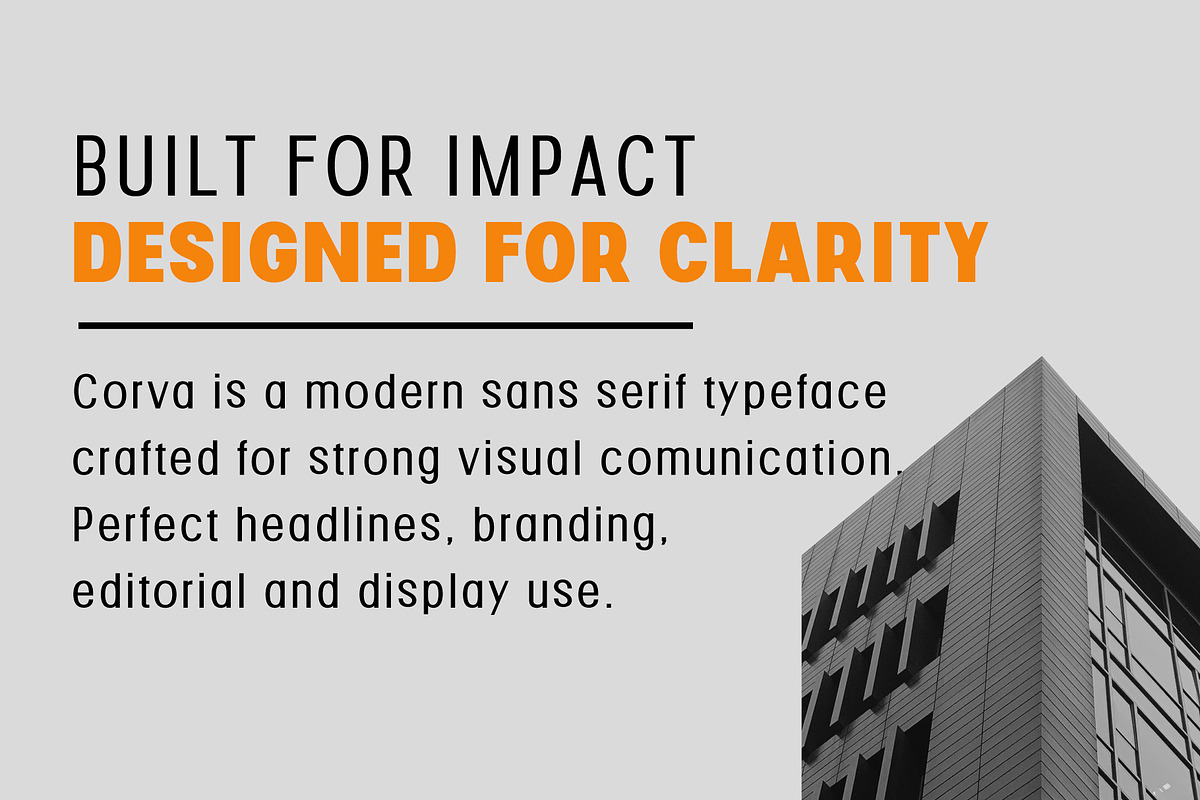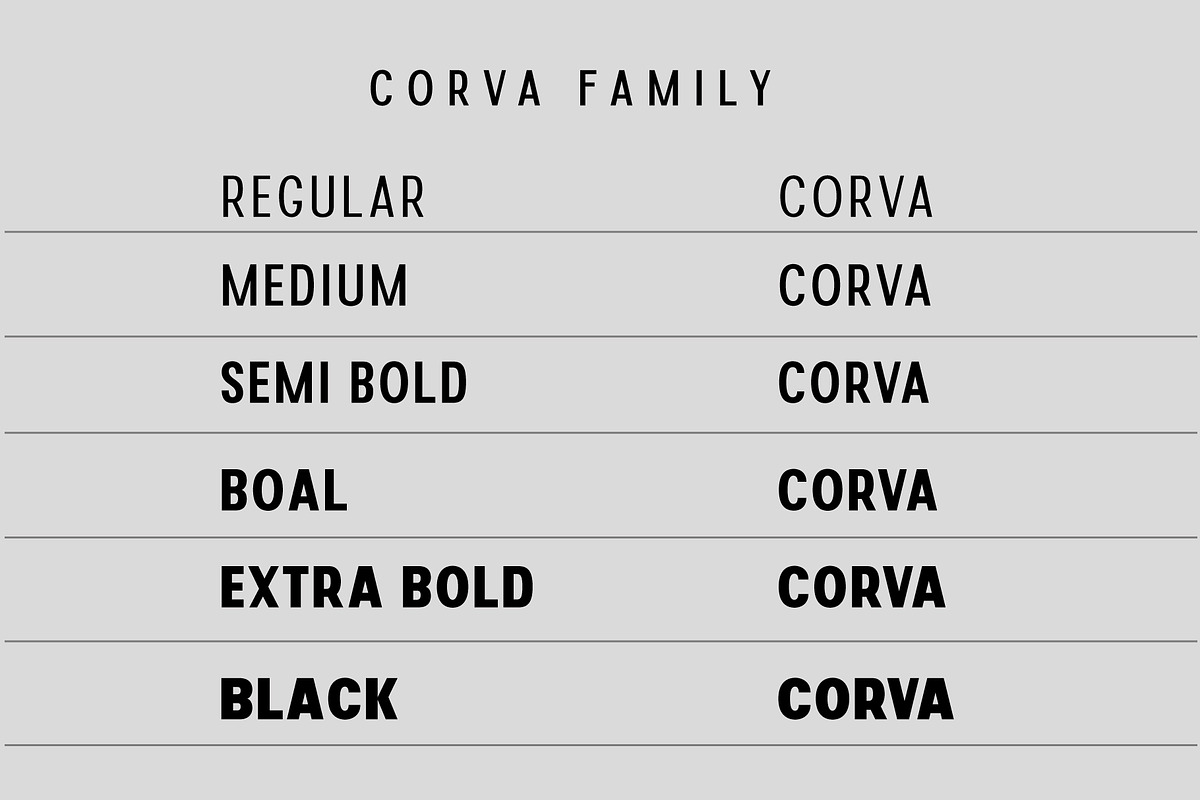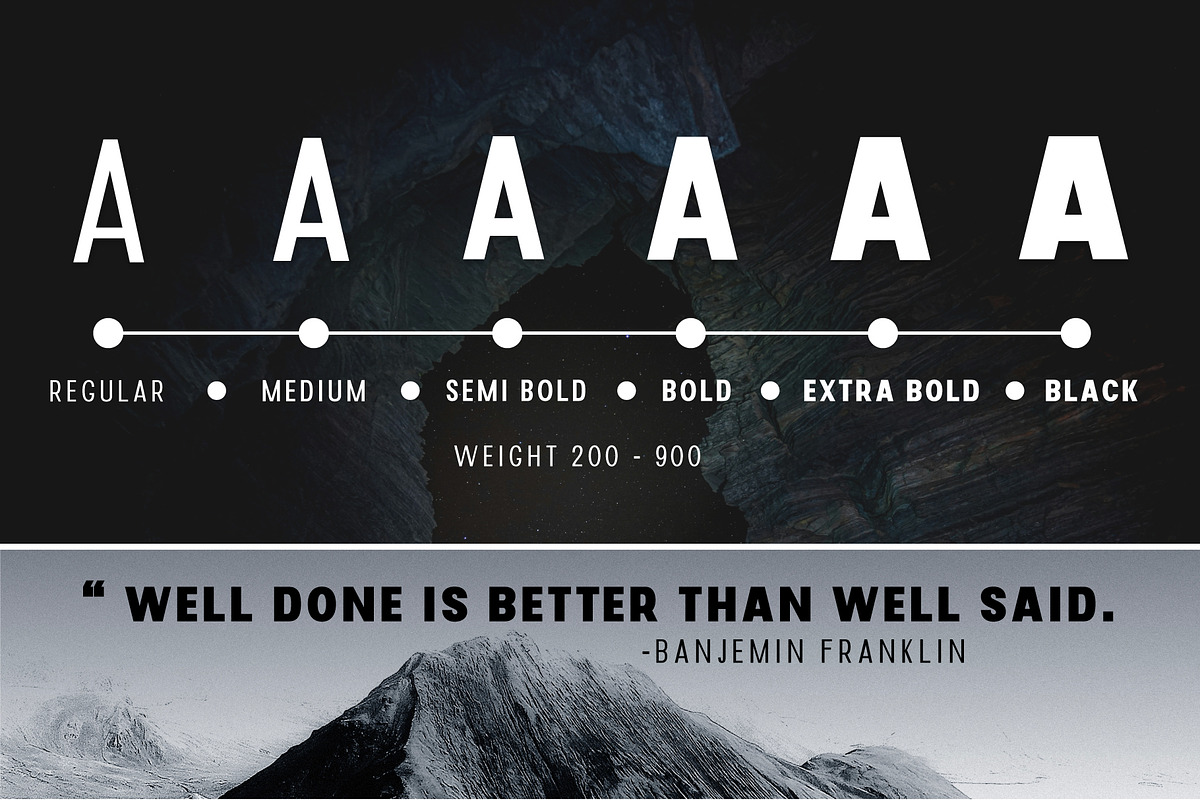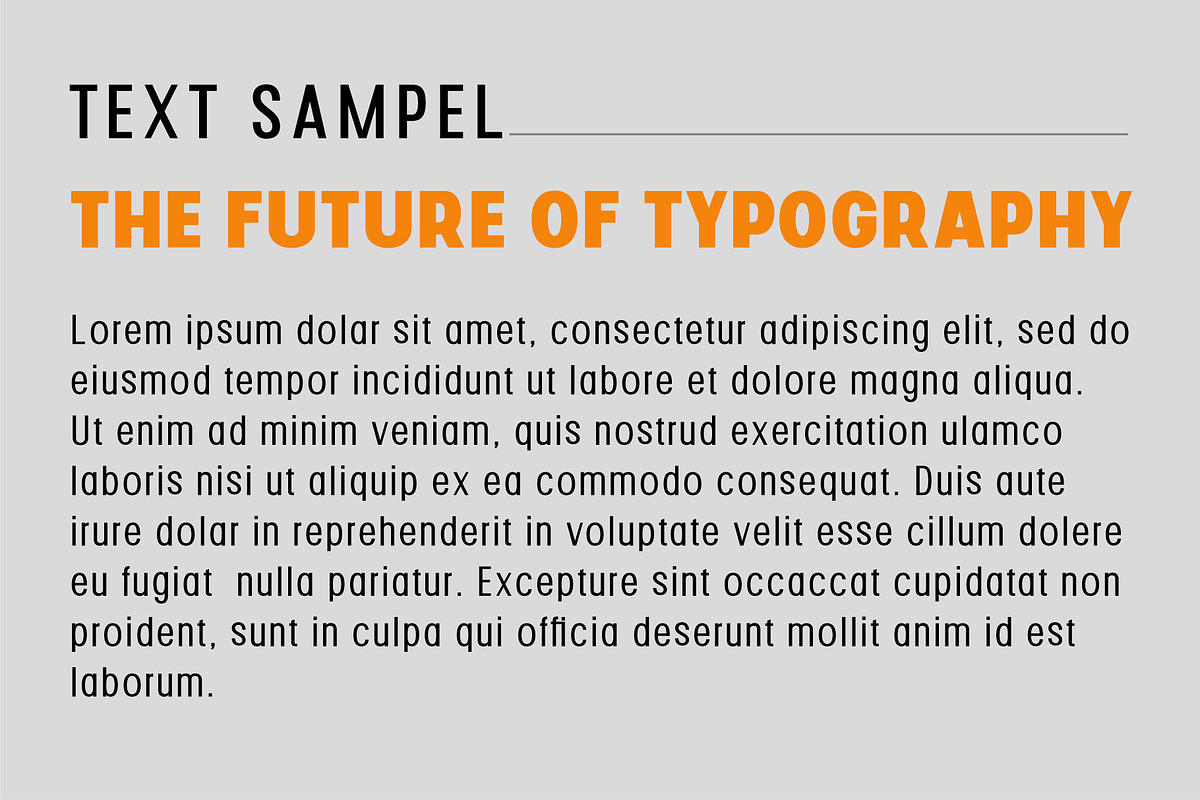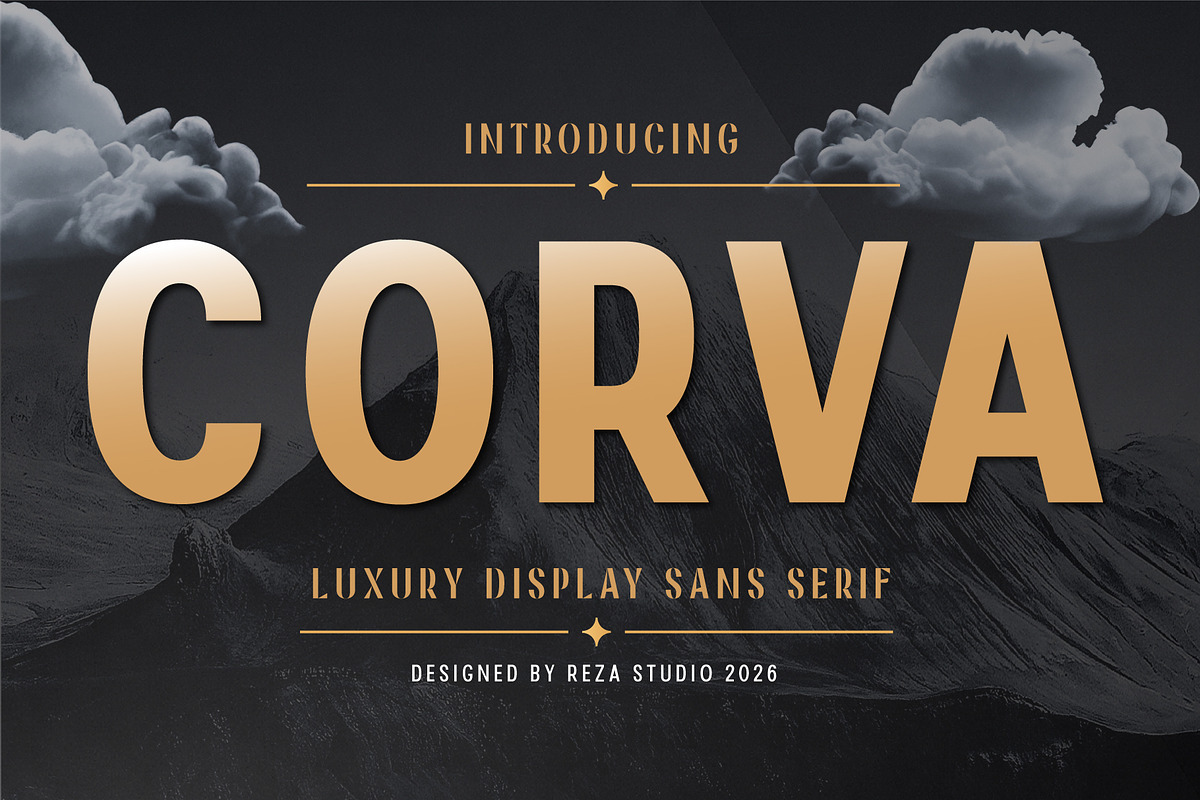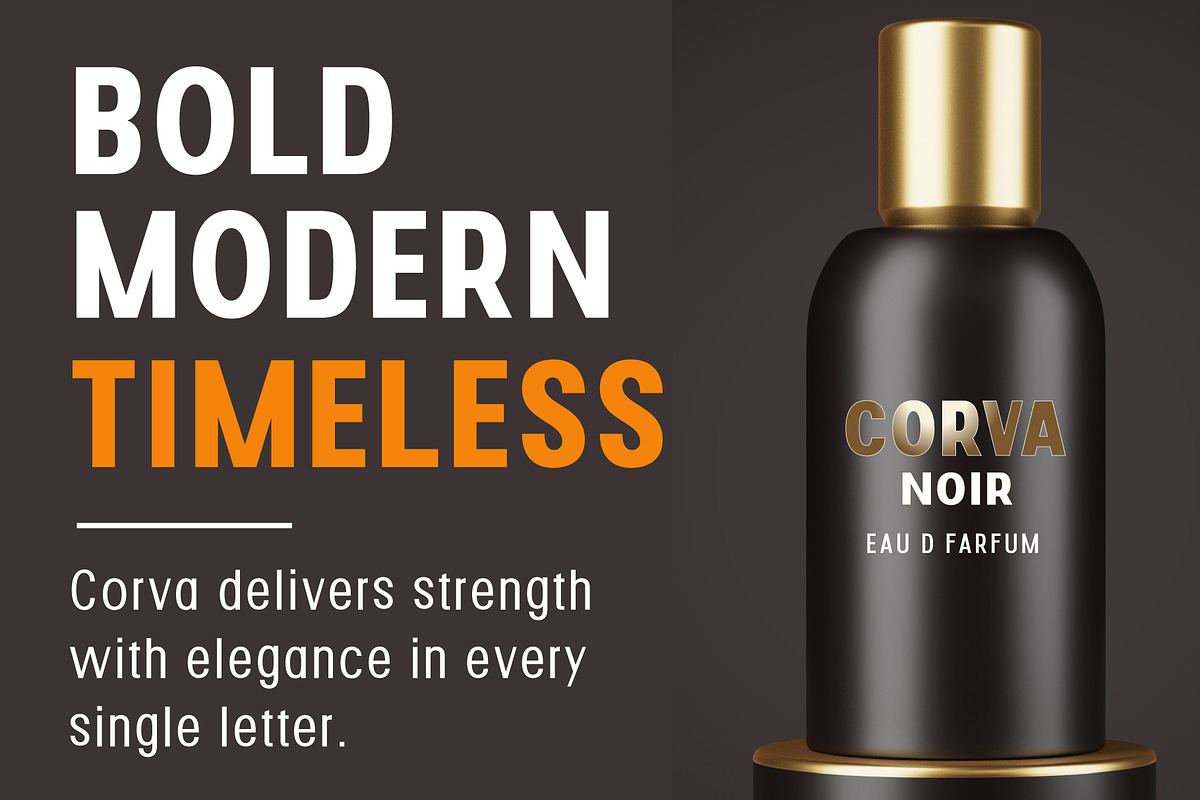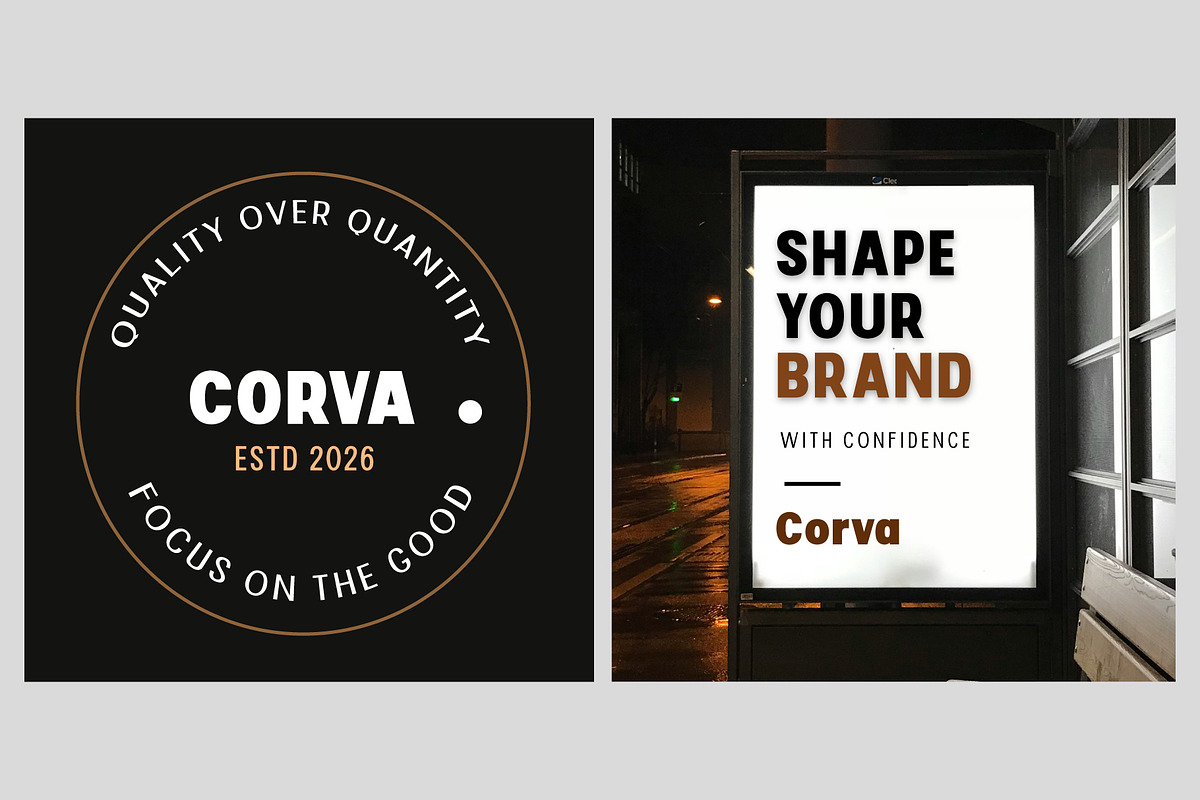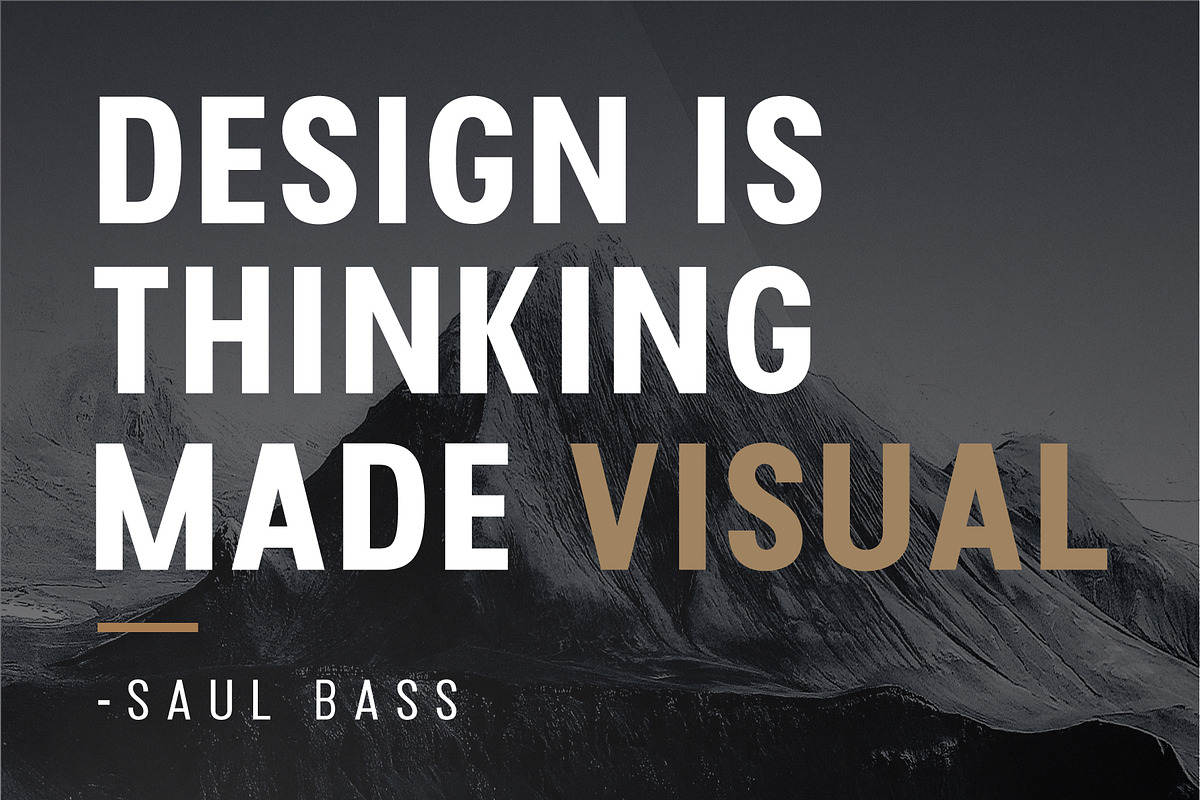
Corva
Corva is a bold luxury display sans serif font designed to create a powerful, elegant, and sophisticated visual presence. Featuring clean geometric forms, balanced proportions, and premium styling, Corva delivers a timeless aesthetic that blends modern minimalism with luxury branding appeal.
Crafted for designers who want to make a statement, Corva shines in large headlines, logos, editorial layouts, packaging, and high-end branding projects. Its strong character and refined details make it ideal for industries that demand exclusivity, prestige, and visual impact.
Whether you're designing for luxury fashion, beauty products, premium hospitality, real estate, jewelry, or modern lifestyle brands, Corva provides a versatile and memorable typographic solution that elevates any design.
Luxury Branding
Fashion Logos
Editorial Design
Premium Packaging
Cosmetic Branding
Hotel & Resort Branding
Real Estate Marketing
Magazine Covers
Social Media Campaigns
Wedding & Event Design
Product Labels
High-End Advertising
Luxury Display Sans Serif
Bold & Elegant Character
Uppercase Letters
Professional Kerning
Corva is more than a typeface—it's a statement of confidence, elegance, and modern luxury.